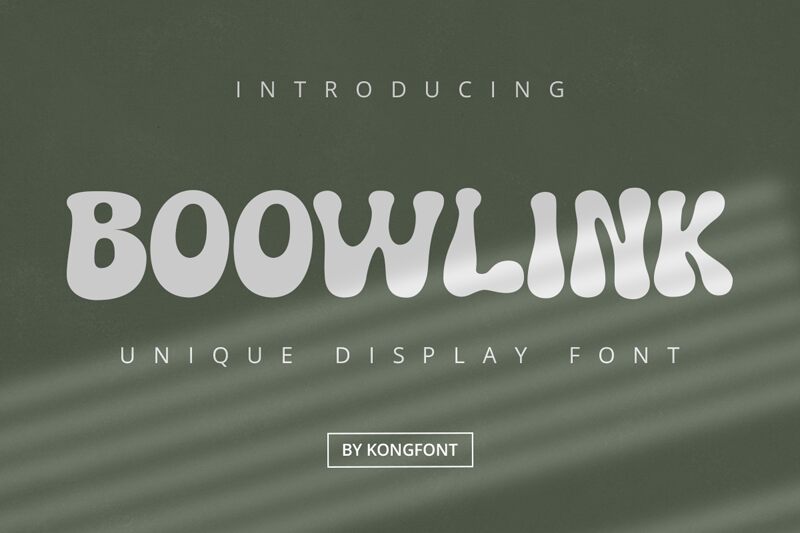
Boowlink font is a striking display typeface designed by Kong Font, featuring a groovy style that captures attention instantly. With its bold weight, Boowlink exudes a playful and nostalgic vibe, making it ideal for projects seeking to evoke a sense of retro charm and lively expression. The exaggerated forms and fluid curves lend this font an organic feel, perfect for headlines, logos, and branding that require a unique touch.
Its distinctive aesthetic makes Boowlink suitable for various design contexts such as posters, event invites, or any creative project aimed at standing out. Available as a free font for download, Boowlink offers designers the opportunity to infuse their work with personality and flair. Embrace the dynamic appeal of Boowlink font to elevate your next design endeavor.